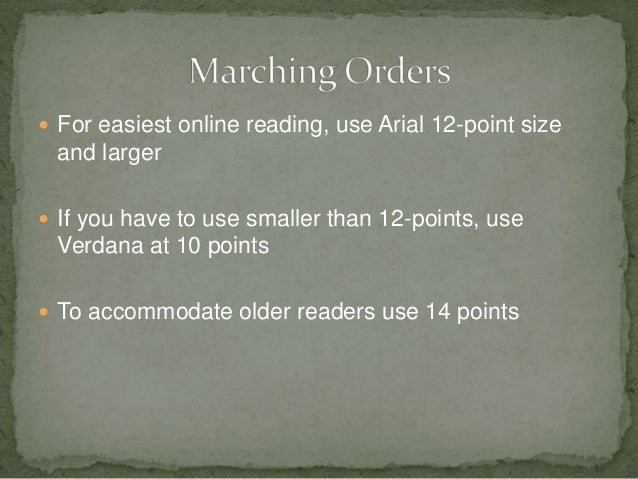
15 Best Web Safe Html Css Fonts Websitesetup Org from websitesetup.org You can use these fonts to create custom styles. 50 samples of the font arial in use. Arial was designed for monotype in 1982 by robin nicholas and patricia saunders.